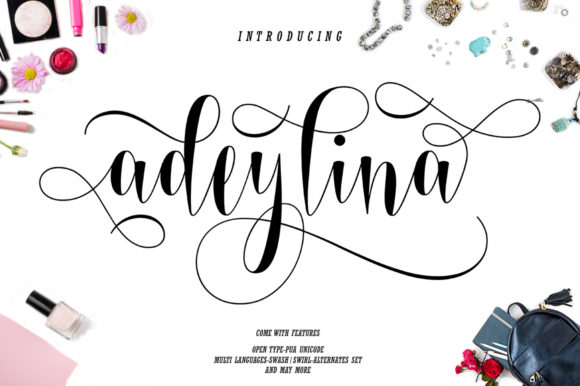
The Quest for the Perfect Font: How Adeylina Stole My Heart
I still remember the frustration of working on a wedding invitation project, scrolling through page after page of fonts, but none seemed quite right. The client wanted something romantic, elegant, and unique. I was on the verge of giving up when I stumbled upon Adeylina Font. It was love at first sight! 💕 This gorgeous script font has been a game-changer for my designs, and I’m excited to share its beauty with you.
An Honest Review of Adeylina Font
- ✨ Authentic feel: Adeylina has a genuine, hand-written quality that adds a touch of warmth to any design.
- ✅ Ease of use: This font is PUA encoded, making it easy to access the amazing glyphs and swashes.
- 💫 Romantic extras: The font comes with cute extras that will add a romantic touch to your designs.
- 🎨 Versatility: Use it to create stunning wedding invitations, beautiful stationery art, eye-catching social media posts, and cute greeting cards.
While Adeylina is an amazing font, there are a few things to keep in mind:
- ⚠️ Learning curve: With so many glyphs and swashes available, it may take some time to get familiar with the font’s features.
- 🤔 Pairing with other fonts: As with any script font, it may require some experimentation to find the perfect pairing font.
The Story Behind Adeylina Font
Adeylina was created with the intention of capturing the essence of romantic, handwritten scripts. The designer aimed to create a font that would evoke feelings of love, warmth, and elegance. With its unique blend of classic and modern elements, Adeylina has become a popular choice among designers and crafters.
| Is Adeylina suitable for body text? | While Adeylina is a beautiful font, it’s best suited for headings, titles, and short paragraphs. For body text, a clearer font might be more readable. |